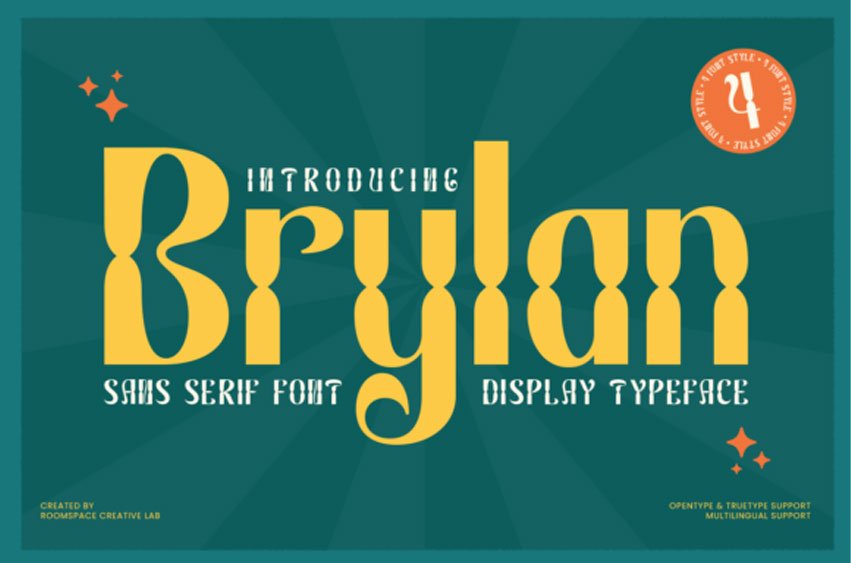
Brylan Font Make a bold, dramatic statement with Brylan, a unique display typeface that fuses art deco glamor with a contemporary, high-contrast aesthetic, utilizing exaggerated, flowing curves and geometric negative space.
This font features thick, confident vertical strokes and unexpected, highly decorative cuts and flourishes, particularly on the lower ascenders and descenders, creating an unforgettable and flamboyant visual rhythm. The single style offers maximum impact.
Brylan is an exceptional choice for branding that seeks to be luxurious, historical, yet distinctly modern.
It supports OpenType and TrueType formats and is multilingual. Ideal for luxury goods and lifestyle branding, art deco-themed events and invitations, high-end club and restaurant signage, movie title sequences, magazine editorials, or any project requiring a flamboyant, highly stylized, and confident sans-serif display that captures the opulence and drama of the roaring twenties while remaining fresh.